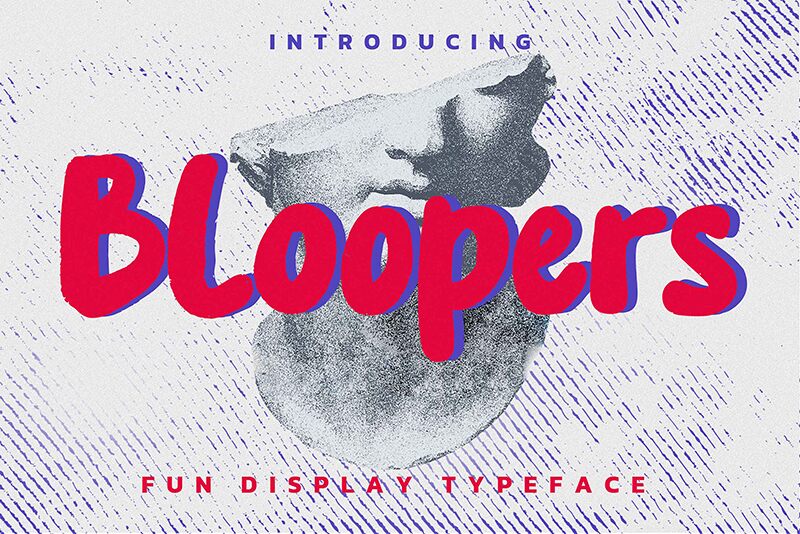
Bloopers
Bloopers is a playful, cartoon-inspired font that immediately grabs attention with its bold, exaggerated strokes. Designed by Gassstype, this display font exudes a lively, whimsical charm perfect for eye-catching headlines, vibrant branding, and fun typography-driven designs.
The oversized, rounded letterforms give Bloopers a distinctly quirky personality, evoking a sense of childlike wonder and amusement. Its bold weight and confident presence make it an ideal choice for emphasizing key messages, adding visual interest to posters, packaging, or social media graphics.
Whether used for playful children's content, humorous marketing campaigns, or retro-inspired aesthetics, Bloopers' unique character has the power to bring a smile and inject a touch of levity into any design. This versatile font effortlessly bridges the gap between playful and professional, making it a valuable asset for designers seeking to capture attention and elicit an emotive response from their audience.